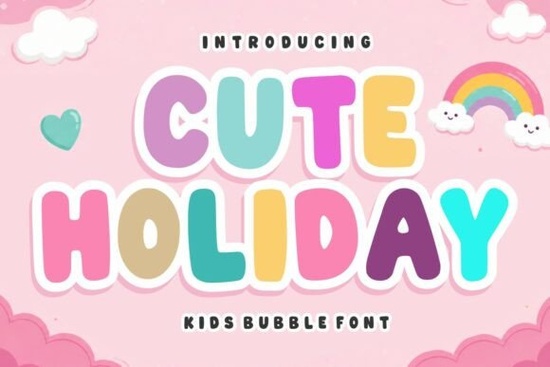
Looking for a font that brings a smile to your designs? The Cute Holiday Font is a delightful choice for anyone who wants to add a touch of whimsy and warmth to their projects. This playful, bubble-style font is perfect for kids-related work, holiday themes, and any design that needs a friendly, inviting feel. Whether you're creating invitations, social media posts, or product packaging, this font delivers a cheerful vibe that stands out.
The Cute Holiday Font features soft, rounded shapes and chunky letterforms that are both bold and easy to read. Its design is inspired by the joy of holidays, children's activities, and vibrant classroom environments. This makes it ideal for a wide range of applications, from educational materials to creative crafts. The font’s versatility means it can be used in both digital and print formats without losing its charm.
If you’re a designer, craftsperson, or small business owner looking for a fun and functional typeface, this font could be exactly what you need. It works well for headlines, posters, and branding that needs to feel approachable and lively. Its bright, playful look is especially effective when paired with colorful illustrations or backgrounds.
What Makes Cute Holiday Stand Out?
One of the key strengths of the Cute Holiday Font is its ability to convey emotion through typography. Unlike more rigid or formal fonts, this one feels like it was made to bring joy. Its bubbly style makes it perfect for projects aimed at children or those with a lighthearted theme. You’ll find it especially useful for designs that require a sense of playfulness and warmth.
Another advantage is how well it works across different mediums. Whether you're designing a t-shirt, a school worksheet, or a greeting card, the font maintains its clarity and visual appeal. Its bold letters ensure readability even at smaller sizes, making it a practical choice for a variety of uses.
Best Uses for Cute Holiday Font
This font shines in several specific areas. Here are some common applications where it really comes into its own:
- Kids' products and branding – Perfect for toy packaging, nursery decor, and children’s books.
- Birthday invitations and greeting cards – Adds a fun, festive touch to special occasions.
- Educational materials – Ideal for worksheets, flashcards, and classroom decorations.
- Social media graphics – Great for eye-catching posts or promotional content.
- Stickers and sublimation designs – Works well for custom prints and personalized items.
Its friendly appearance also makes it a go-to option for holiday-themed projects, whether you're designing for Christmas, Easter, or other celebrations. The font’s character helps create a cohesive and inviting look that resonates with audiences of all ages.
How to Use Cute Holiday Effectively
To get the most out of the Cute Holiday Font, consider pairing it with complementary elements. For example, using it alongside pastel colors or hand-drawn illustrations can enhance its playful nature. It also works well when used sparingly such as in headlines or short phrases so it doesn’t overwhelm the overall design.
If you're new to using bubble fonts, start with simple layouts and gradually experiment with more complex compositions. Testing the font in different sizes and contexts will help you understand how it performs in various settings. Remember, the goal is to maintain clarity while keeping the design engaging and fun.
Whether you're working on a personal project or a client’s design, the Cute Holiday Font is a valuable addition to your toolkit. Its friendly, bold style makes it easy to use and visually appealing, helping you create designs that feel warm and welcoming.
Before finalizing your project, take a moment to review how the font looks in different sizes and backgrounds. This small step can make a big difference in the overall impact of your design. With the right approach, this font can become a staple in your creative workflow.